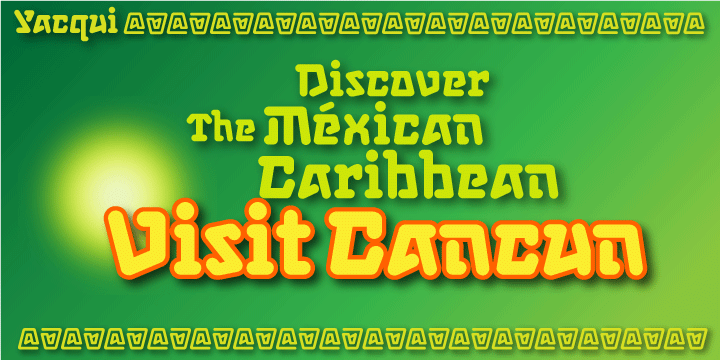
In designing a font that had a Mayan or Aztec quality to it without the usual “Mariachi” look, I decided to make it single weight with some open ends and offbeat rounded serifs to give it a more serious feel which will lend itself to other non ethnic uses. I have added a few discretionary ligatures, which also contain old-style numerals, titling caps and small caps.
Usage recommendations: Captions, packaging, cards, posters, ads, book jackets, manuals, and menus.